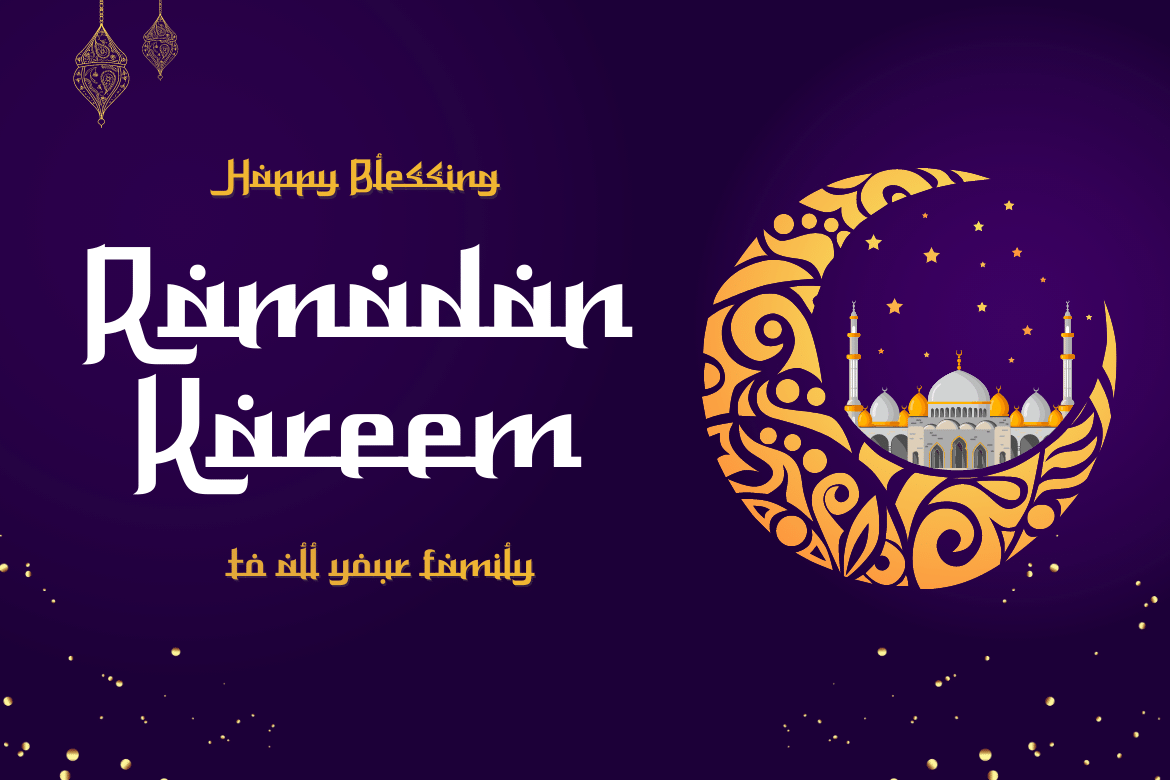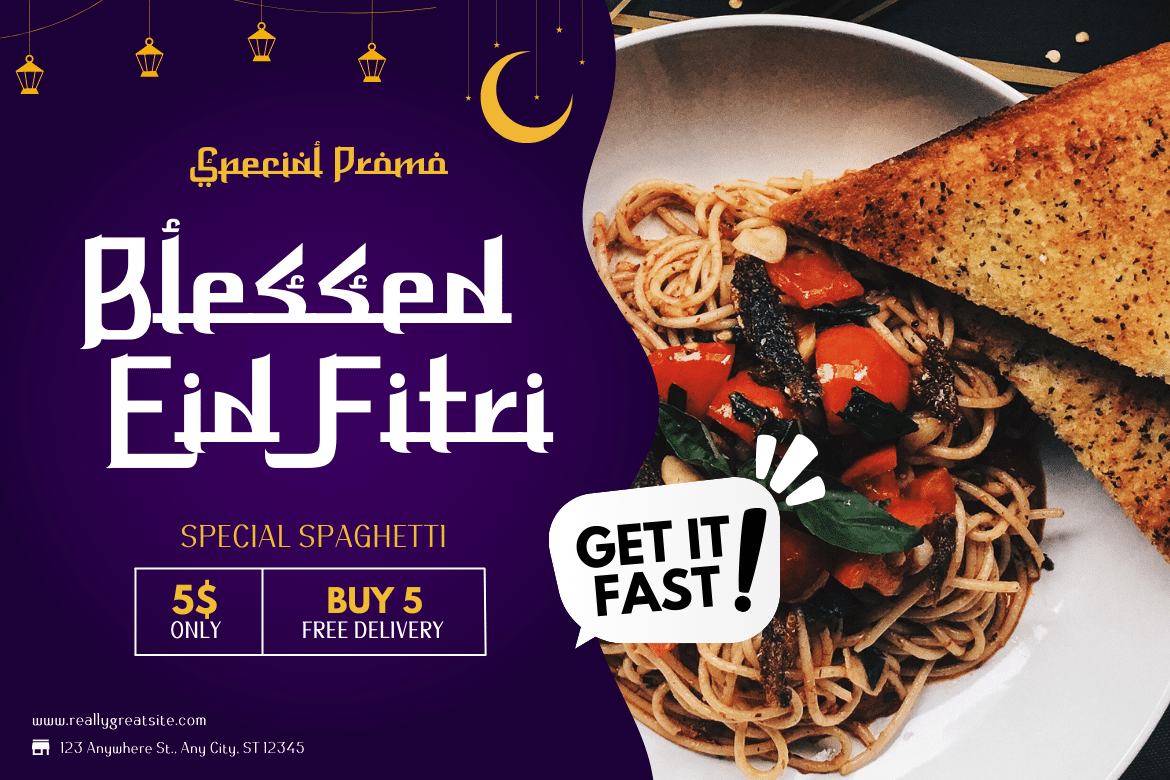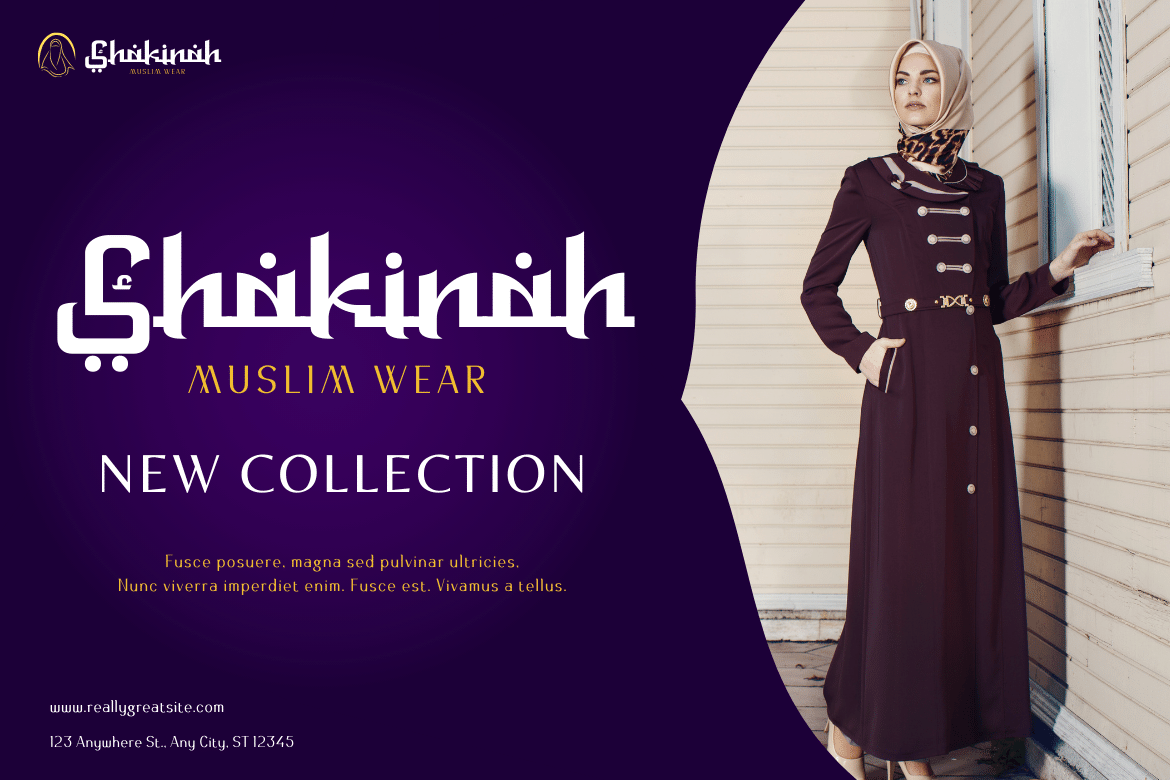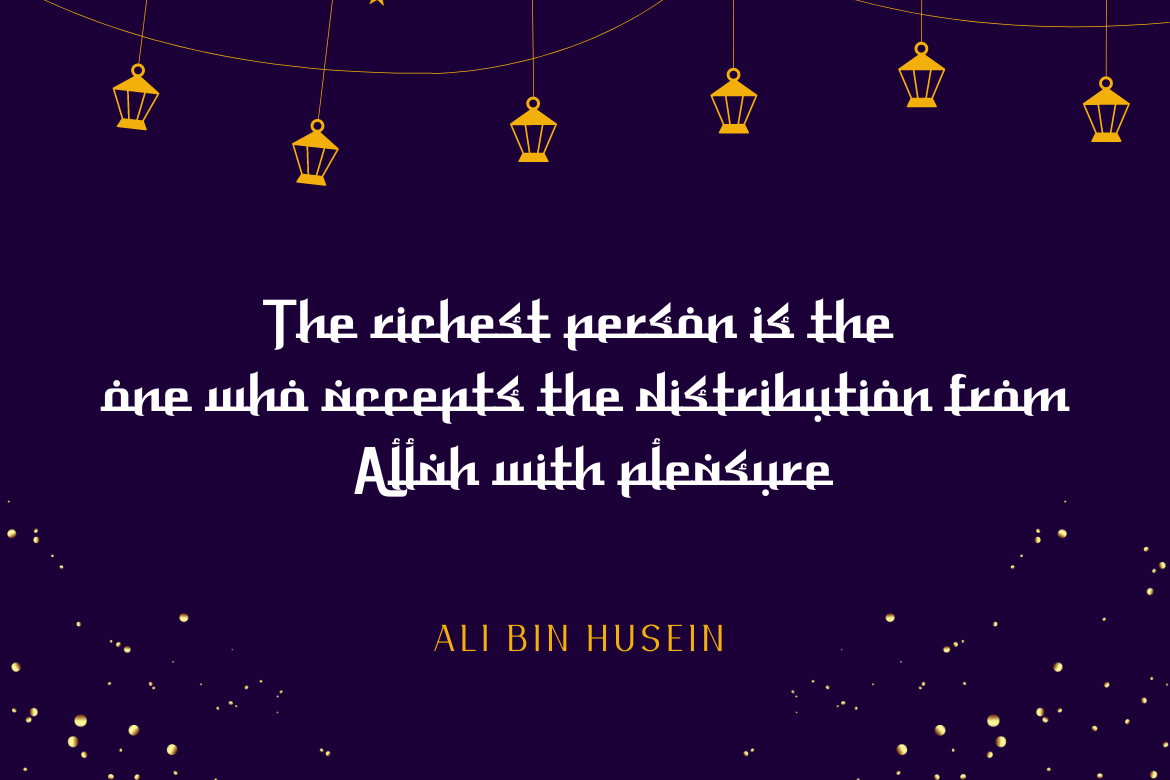
Rosyidun Font
Rosyidun Display Font
This is an authentic and geometric Arabic display font. Its capital letters and forms are rotated, creating a visually stunning display for captions, posters, or headlines.
You’ll fall in love with the beautiful and ornate patterns of the Arabic Display font. The perfect addition to any design project.